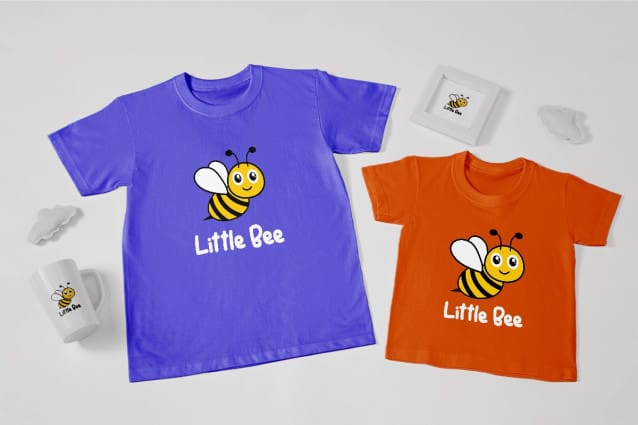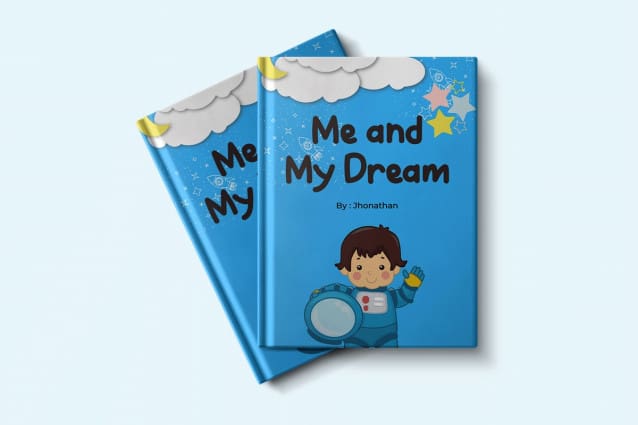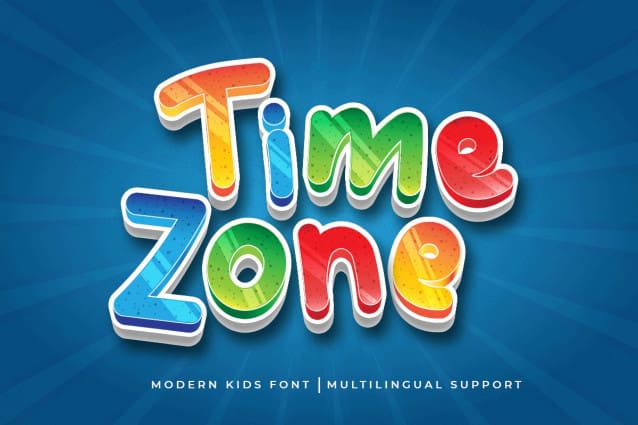
Time Zone Font
Time Zone Modern Kids Font was created to present a simple, fun, and cute impression to anyone who sees it. This is in line with the characteristics of clean, slightly inflated, and cute letters. Each letter can be distinguished easily. People who read texts using this typeface do not have to try hard to read and understand them.
As the name implies, Time Zone Modern Kids Font is perfect for use as a poster containing kids’ needs. This font is also very suitable when used for children’s equipment, such as clothing item designs. This is because of its simple and cute shape. This type of font can be printed in small or large sizes and still looks good up close or from a distance.
For people who like simplicity and do not like the appearance of a busy design, Time Zone Modern Kids Font will be a good choice. This font is also suitable for use as a digital font, such as in a video, movie title, and displaying quotes on social media.